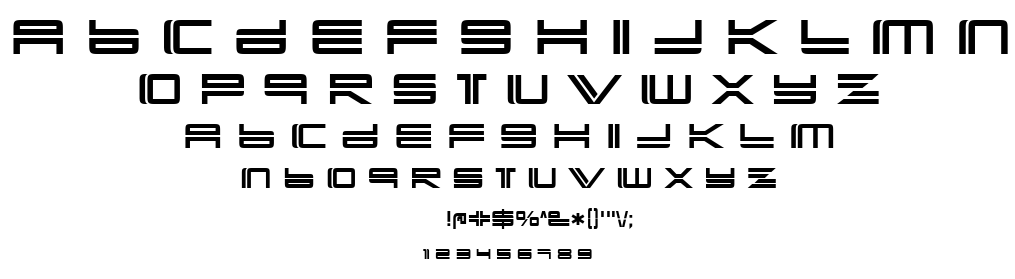
Yonder Recoil is a speedy techno font with a eye on the future and another eye on the near present. Don’t forget to read the files inside the zip for details. Updated in 2012.